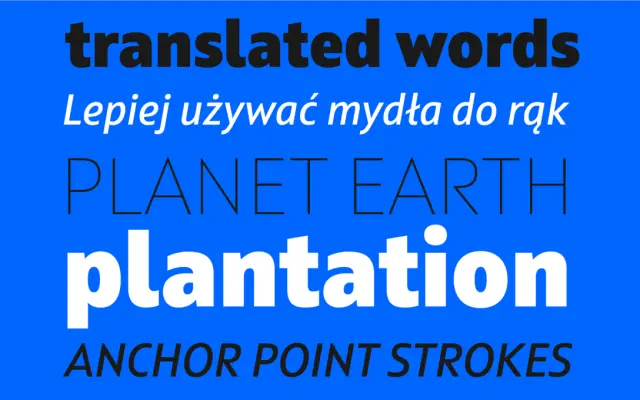
Squad
Fontfabric · Svetoslav Simov · 2018
A semi-condensed humanist sans by Svetoslav Simov, released in 2018 and drawing on the Frutiger tradition for broad multilingual use.
Designed by Svetoslav Simov at Fontfabric, Squad takes its cues from Adrian Frutiger's approach to legibility and balanced rhythm, arriving in 18 styles across nine weights with matching italics. Its semi-condensed proportions suit both dense body text and large headlines, and the family covers Extended Latin, Cyrillic and Greek for over 130 languages. OpenType features include tabular numerals, fractions, discretionary ligatures and case sensitivity.
Squad is described as inspired by Adrian Frutiger and blends humanist heritage with contemporary simplicity; its semi-condensed proportions and balanced rhythm align it with the humanist sans-serif tradition.